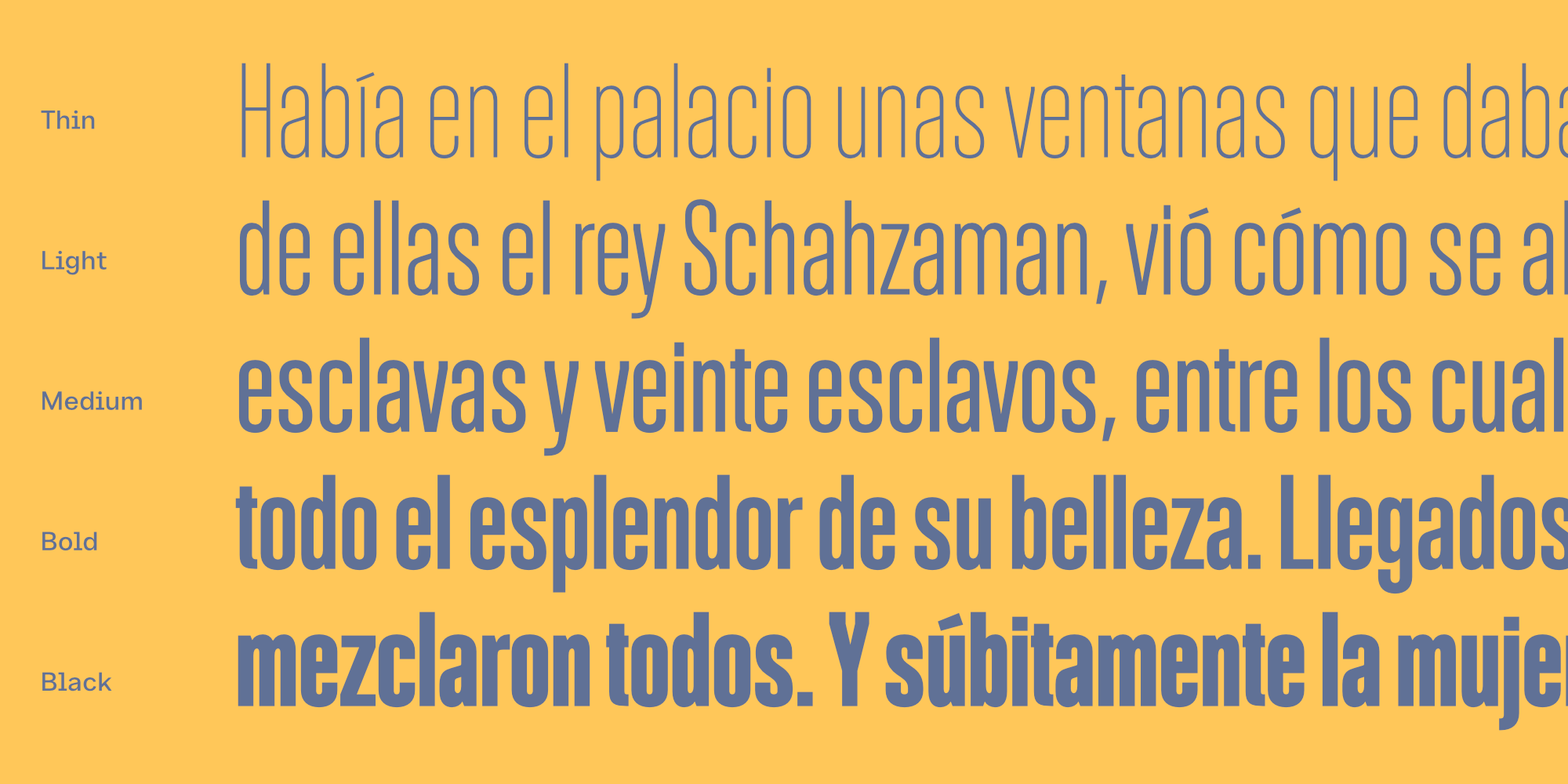
This compact sans-serif typeface is perfect for space-constrained layouts, mobile interfaces, urban signage, transportation systems, emergency communications, high-density publications, wayfinding systems, data visualization, and efficient logo design.
Denso Sans Font brings excitement to your design projects with its space-efficient design and maximum readability. This intelligently condensed sans-serif font features optimized letterforms that deliver exceptional clarity in minimal space, making it perfect for applications where every pixel and millimeter counts. The font's dense character and superior legibility ensure clear communication even in the most challenging space-restricted environments.
The Denso Sans Font family includes thin, light, regular, medium, bold, and black weights, providing designers with comprehensive options for creating information-rich communications. Each weight maintains the font's signature efficiency while offering different levels of visual hierarchy for complex data presentations and high-density layout systems.
Maximize your communication efficiency with Denso Sans Font Free Download today. This space-conscious typeface combines density with clarity, making it indispensable for modern information design. Whether you're designing mobile app interfaces, creating transit signage, or developing data-heavy publications, this font delivers optimal results with its compact character and space-saving excellence.
The precisely engineered letterforms ensure maximum information density without sacrificing readability. Download Denso Sans Font now and optimize your typography arsenal with this efficient design solution that packs maximum communication power into minimum space with intelligent design and superior functionality.